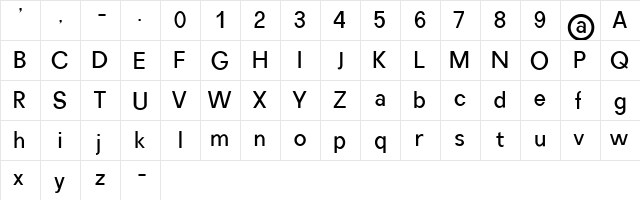
Recta Regular
Design Context for Recta Typeface
Recta takes a measured approach to typography — its balanced proportions and neutral character make it a reliable workhorse for both digital and print work.